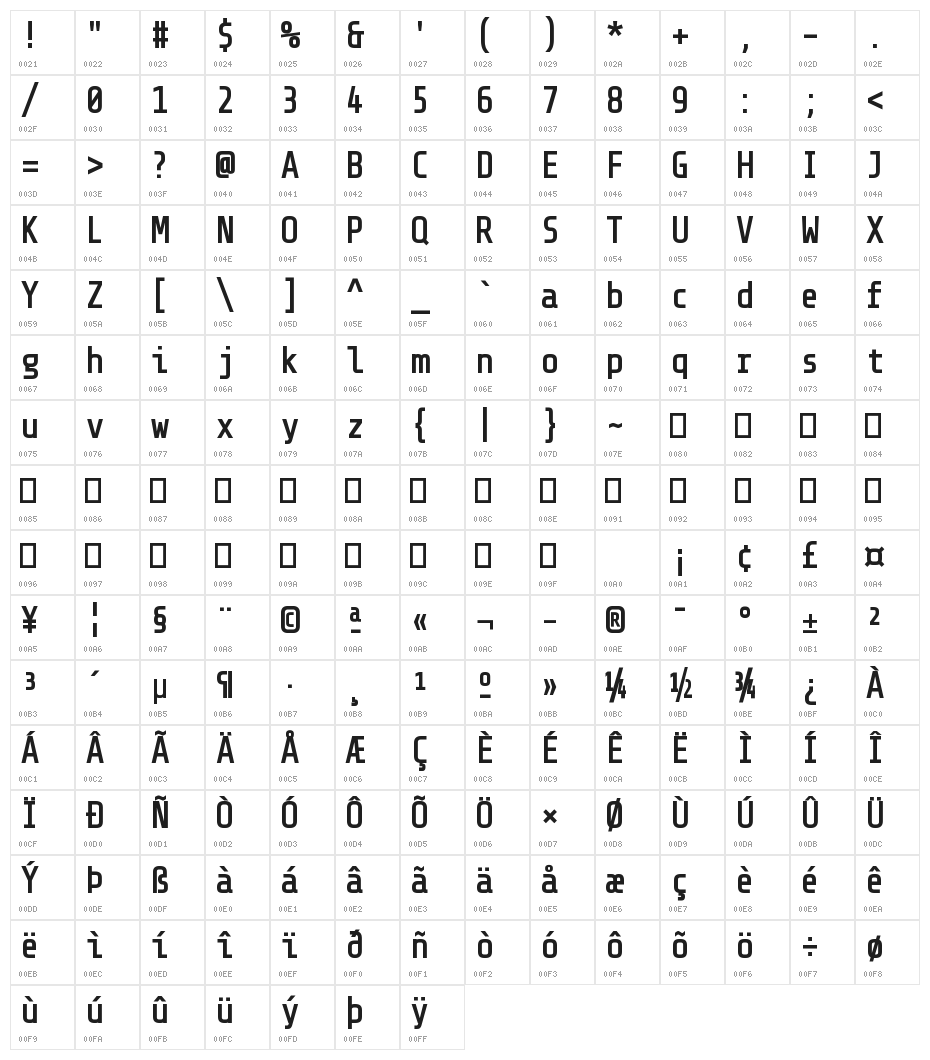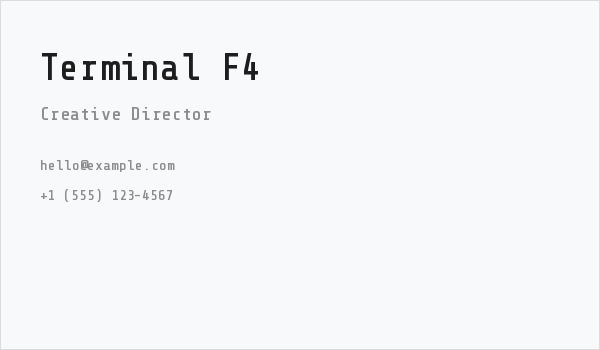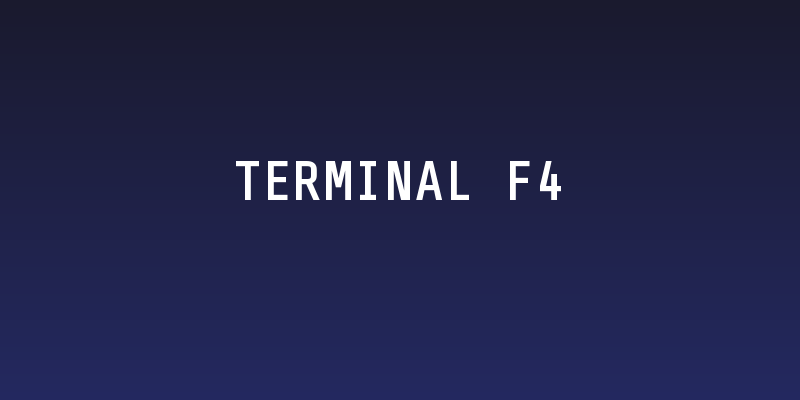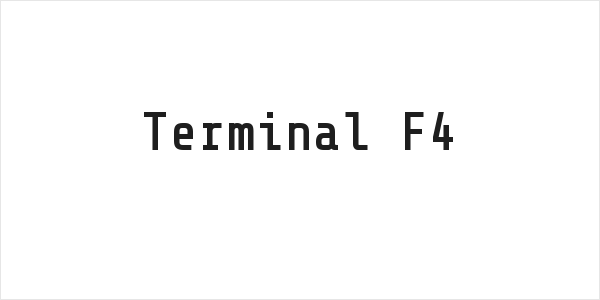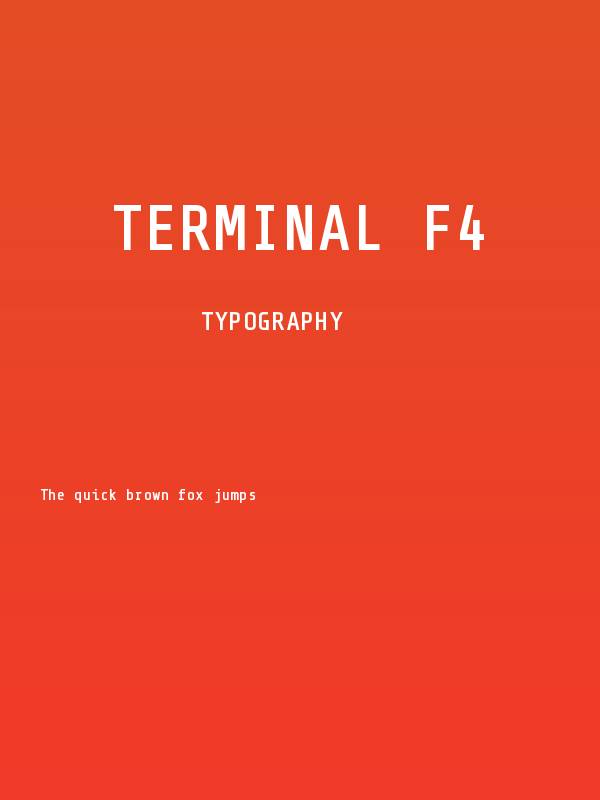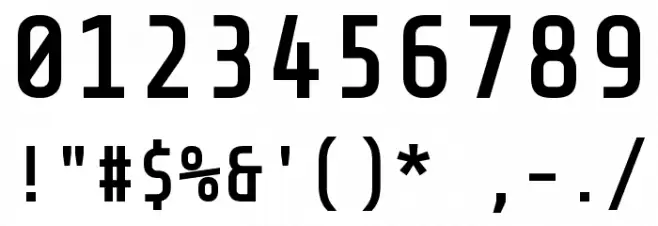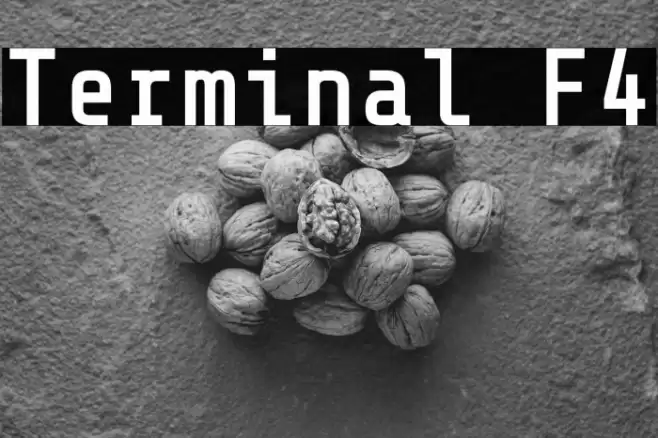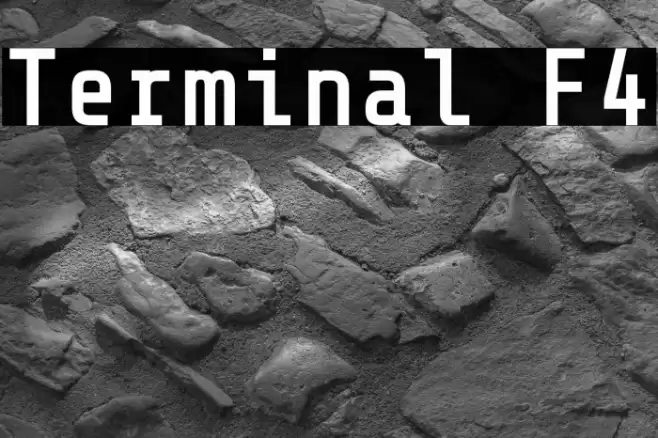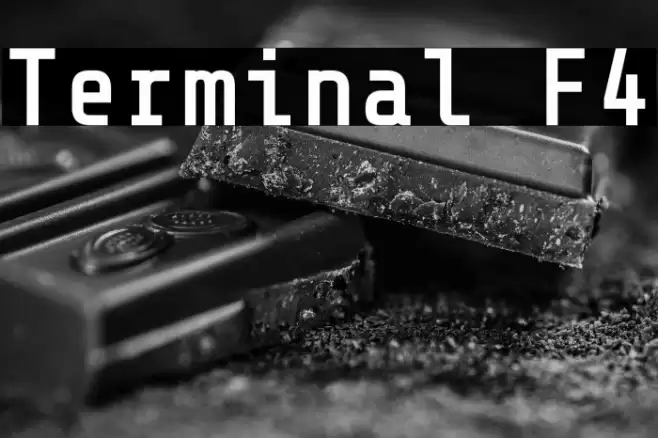
Terminal F4 Font
Terminal F4 Description
This font features a modern, geometric design with clean lines and a structured appearance. The characters are uniform in width, giving it a monospaced feel, although it is not strictly monospaced. The uppercase letters are bold and assertive, while the lowercase letters maintain a consistent style with slightly rounded edges, adding a touch of softness to the overall look. The numerals are clear and easily distinguishable, making them suitable for technical or digital applications. Special characters are well-defined, enhancing the font's versatility. This font is ideal for projects that require a contemporary and professional aesthetic.
| Use Case | Headlines, Body text, Logos, Digital interfaces |
| Proposed Projects | Ideal for digital interfaces, coding environments, technical documentation, and modern branding. |